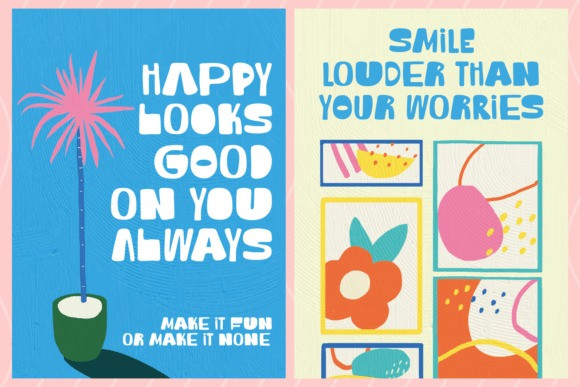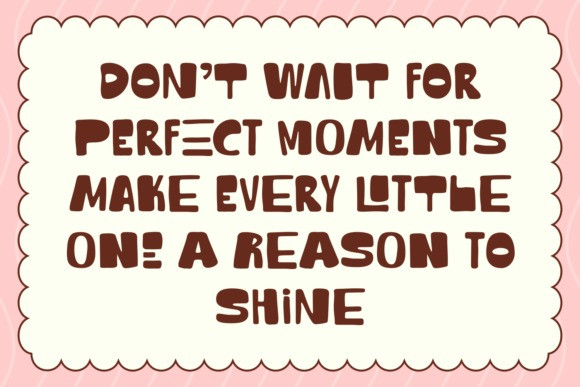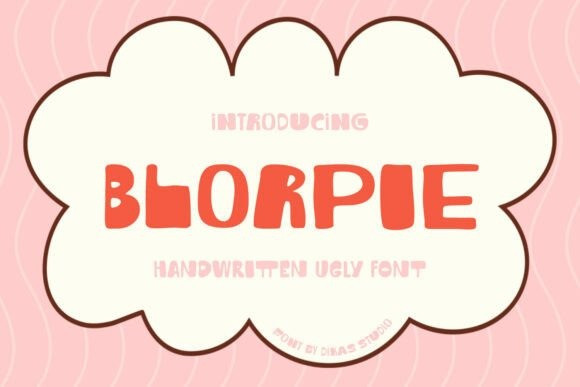
Blorpie Font
Blorpie Font is a hand-drawn sans-serif font with a cute and playful personality. Its fun, rough texture and charming contrast give every letter a lively, kid-friendly feel.Perfect for children’s books, posters, toys, stickers, and any design that needs a cheerful touch, Blorpie brings warmth and creativity to your projects.With its sweet and friendly style, Blorpie makes every design feel more fun and imaginative.